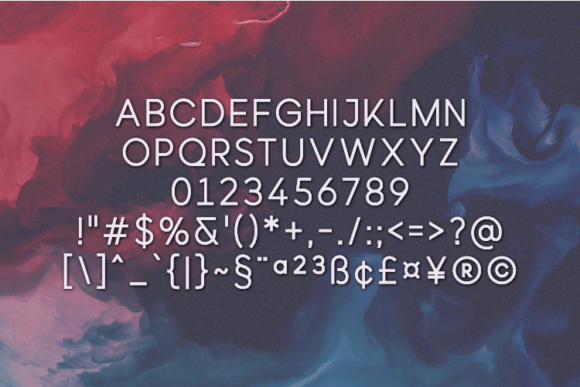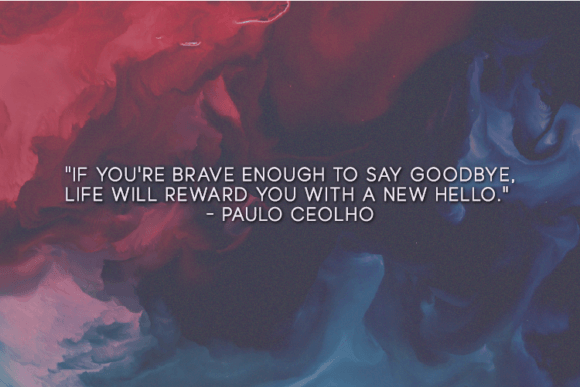
Unlocking Creative Potential with Abstraction Font
In the world of design, fonts play a pivotal role in bringing ideas to life. Among the myriad of typefaces available, the Abstraction Font stands out as a versatile and stunning sans serif font that can elevate any project. Whether you’re a designer, craftsperson, or DIY enthusiast, Abstraction Font offers endless possibilities for creating beautiful headings, gorgeous invitations, stunning logos, and more.
The Versatility of Abstraction Font
Abstraction Font is more than just a typeface; it’s a tool that can transform your creative projects. Its clean and modern sans serif design makes it perfect for a wide range of applications, from displays and headers to invitations and save-the-dates. The font’s versatility is one of its most compelling features, allowing it to seamlessly integrate into various design contexts.
Perfect for Display and Header Text
When it comes to making a statement, Abstraction Font excels as a display or header font. Its bold and crisp letters are designed to grab attention, making it ideal for titles, headings, and key messages in your designs. Whether you’re working on a website, a marketing brochure, or a product label, Abstraction Font can help you create impactful and memorable text.
Crafting Beautiful Invitations and Wedding Materials
For those special occasions, such as weddings, baby showers, or milestone events, Abstraction Font offers a sophisticated and elegant solution. The font’s aesthetic is well-suited for creating gorgeous invitations, save-the-dates, and wedding stationery. Its clarity and beauty ensure that your event’s message is conveyed with style and poise.
Logo Design and Branding
Abstraction Font is also an excellent choice for logo design and branding projects. Its modern and clean lines make it easy to scale and adapt to different mediums, from business cards to billboards. The font’s unique character ensures that your brand stands out, offering a distinctive voice that can be recognized across various platforms.
Why Choose Abstraction Font?
So, what makes Abstraction Font a go-to choice for designers and crafters? Here are a few reasons:
- Versatility: Its sans serif design and range of weights make it suitable for a multitude of projects.
- Elegance: Abstraction Font brings a touch of sophistication and modernity to any design.
- Readability: The font’s clarity ensures that your message is conveyed effectively, whether in print or digital formats.
- Customization: With its range of applications, Abstraction Font can be tailored to fit your project’s specific needs.
Tips for Using Abstraction Font
To make the most of Abstraction Font, consider the following tips:
- Mix and Match: Combine Abstraction Font with other typefaces to create visual interest and hierarchy.
- Play with Sizes: Utilize different font sizes to emphasize key messages and create a dynamic layout.
- Experiment with Colors: Take advantage of Abstraction Font’s versatility by experimenting with various colors and textures.
Abstraction Font is a powerful tool for anyone looking to elevate their design projects. Its versatility, elegance, and readability make it an excellent choice for a wide range of applications, from display text and logos to invitations and wedding materials. By incorporating Abstraction Font into your design toolkit, you’ll unlock new creative possibilities and bring your ideas to life with style and sophistication.
Whether you’re a seasoned designer or a DIY enthusiast, Abstraction Font invites you to explore new horizons of creativity. So, dive in, and discover how this stunning sans serif font can complement and transform your projects.